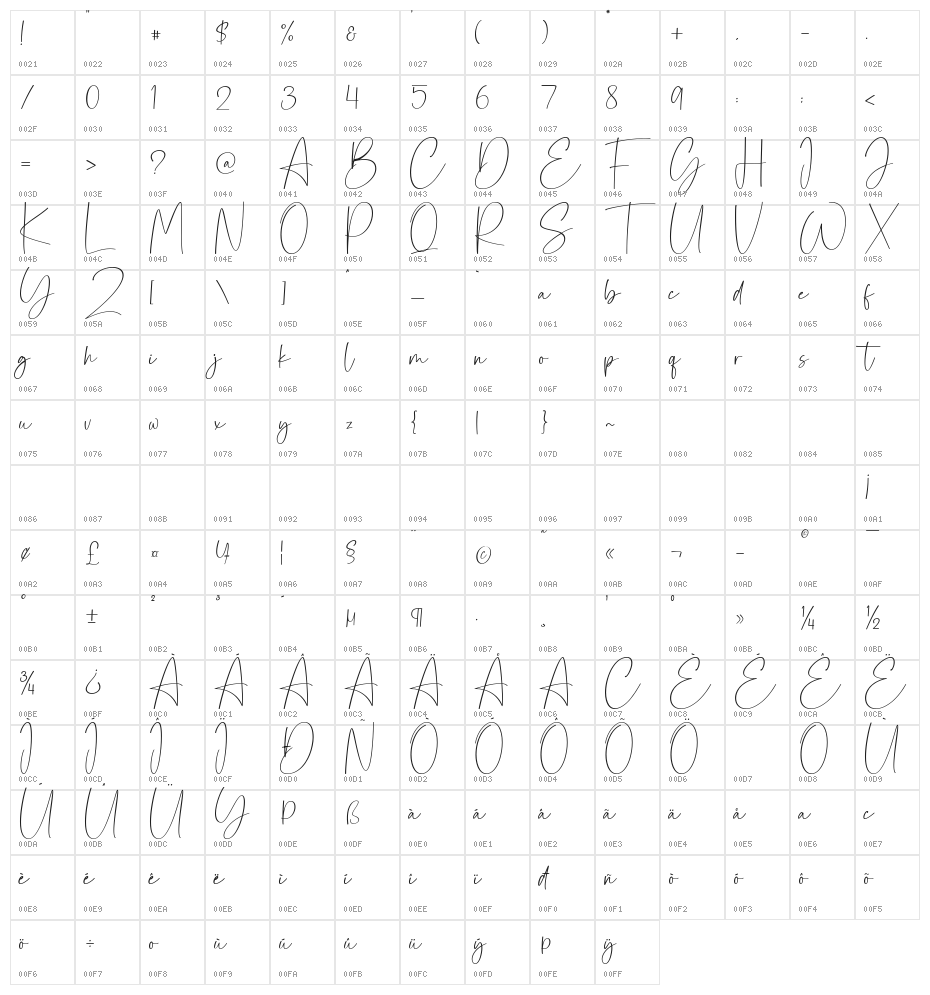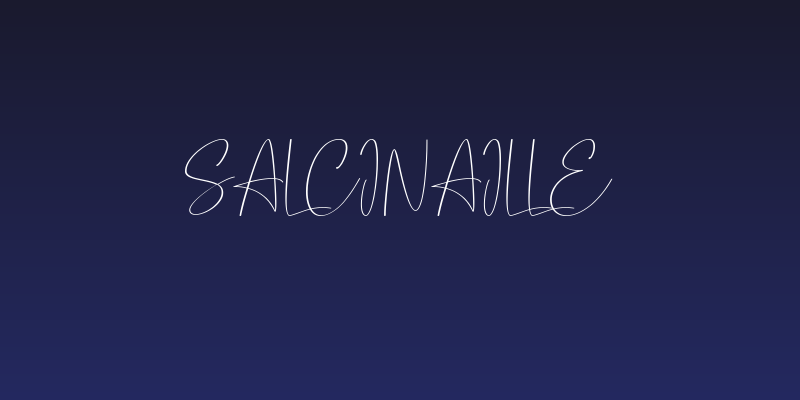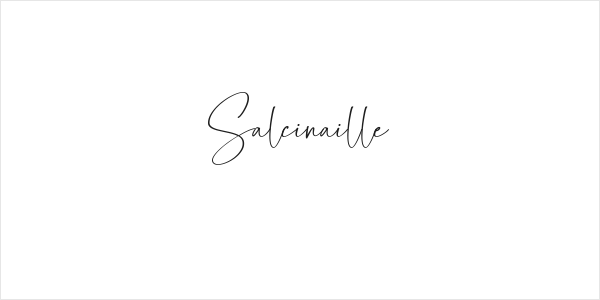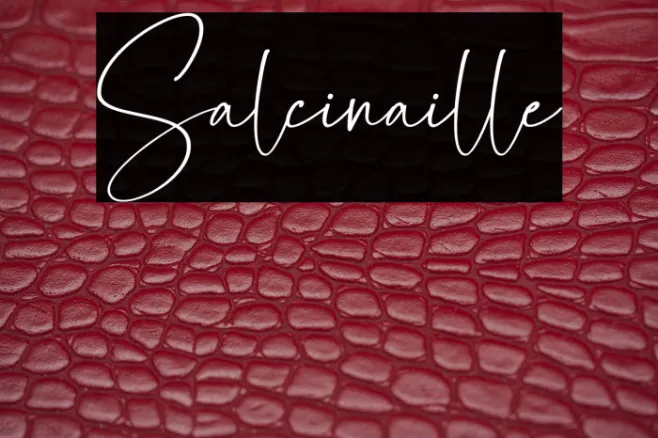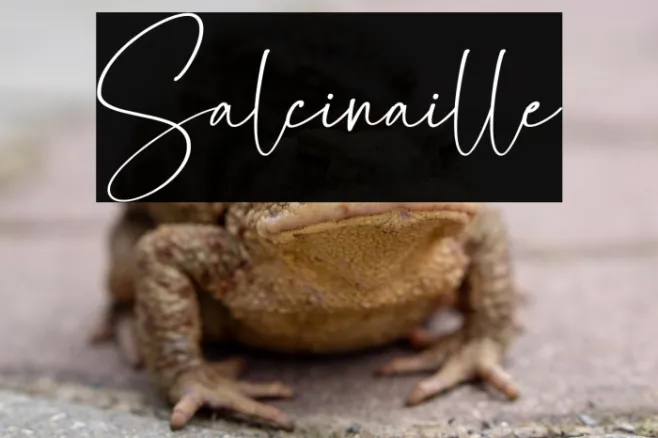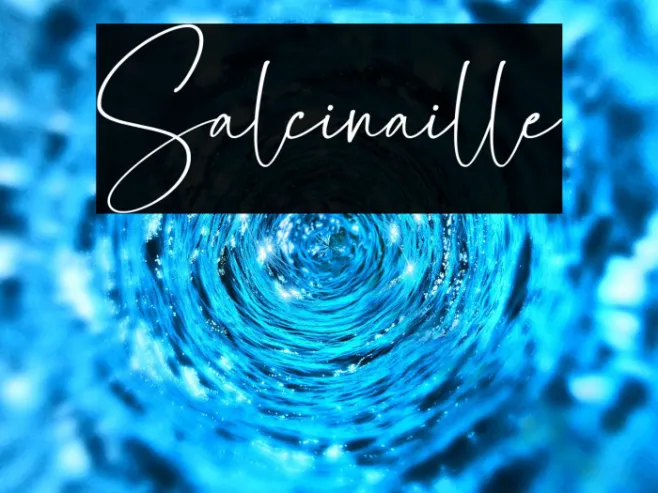
Salcinaille Font
Salcinaille Description
This font features a playful and elegant handwritten style, characterized by its fluid and flowing letterforms. The uppercase letters are tall and slender, with a slight slant that adds a dynamic feel. The lowercase letters maintain a consistent style, with smooth curves and a natural, cursive appearance. The numerals are clear and legible, matching the overall aesthetic of the font. Special characters are thoughtfully designed, complementing the script-like quality of the letters. This font exudes a sense of creativity and personal touch, making it suitable for a variety of design projects.
| Proposed Projects | Ideal for wedding invitations, greeting cards, personal branding, and creative projects. |